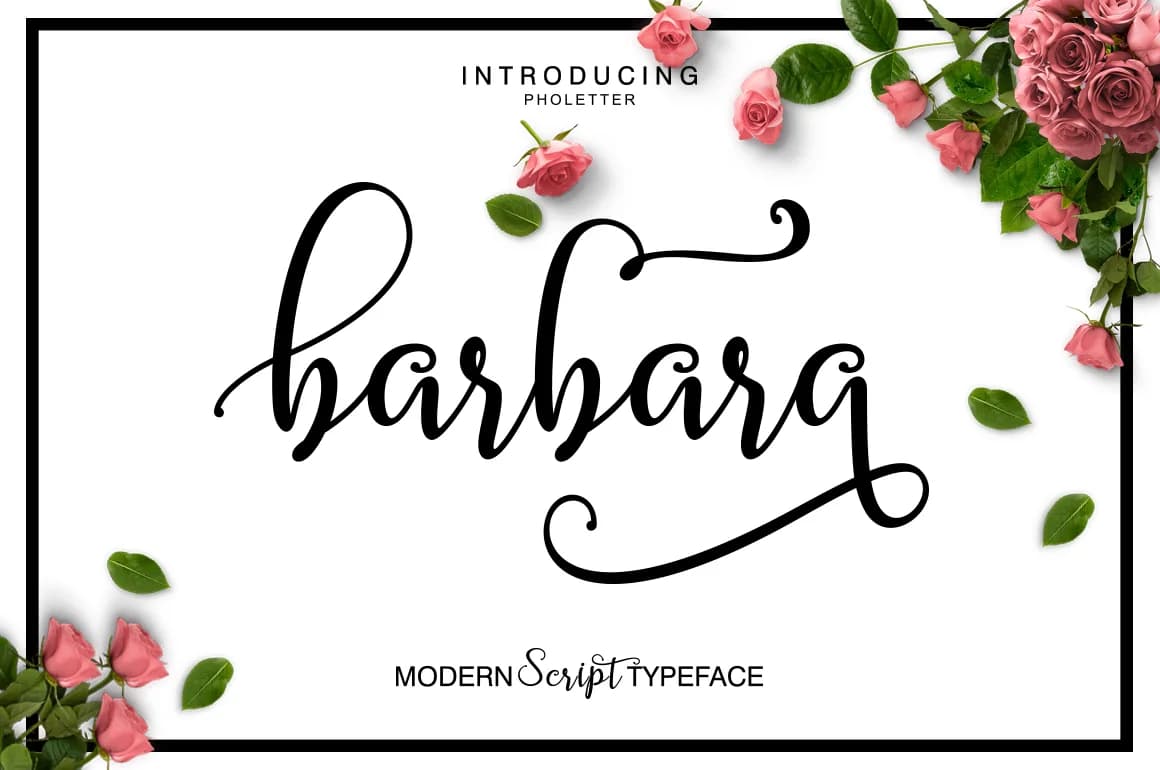
Barbara Script Font by masinong is a fluid, modern calligraphy that brings elegant movement to any design project. With its smooth letterforms and contemporary flair, this handwritten typeface bridges the gap between classic script tradition and modern aesthetic sensibility. The font's flowing strokes work beautifully for creating refined typography that feels both personal and polished, making it a versatile choice for designers seeking character-driven letterwork.
This script excels for wedding invitation suites, where its graceful nature transforms ceremonial announcements into keepsake-worthy pieces. It's equally at home crafting branded lettering for boutique skincare labels and artisan product packaging, designing personalized greeting card text with genuine warmth, or hand-lettering social media graphics for lifestyle brands. The natural pen-like quality makes it ideal for creating monograms and initial-based designs that carry sophistication without feeling overly ornate or difficult to read at smaller sizes.
Barbara Script Font is a script font that shines as a display or heading face. Pair it with a clean sans-serif or serif font for body text β the contrast creates a clear hierarchy while the two styles stay balanced and easy to read.